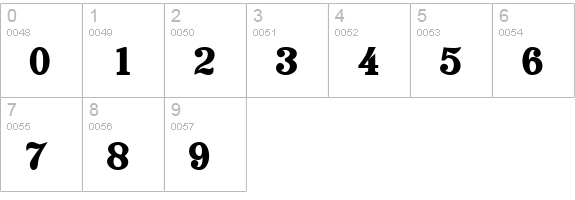
RataczakExtraBold Font Details
RataczakExtraBold font is a stunning and powerful typeface that commands attention with its bold and authoritative presence. Designed with a touch of elegance and a dash of modernity, this font is perfect for making a statement in any design project. With its thick and robust letterforms, RataczakExtraBold exudes confidence and strength, making it ideal for headlines, logos, posters, and any other application where you want to make a bold impact. Its clean and sharp edges give it a sleek and professional look, ensuring that your message will be conveyed with clarity and precision. But what sets RataczakExtraBold font apart is not just its exceptional design; it is also the fact that it is free to download at FontsMarket.com. Yes, you read that right - this incredible font can be yours without spending a dime. FontsMarket.com offers a wide range of high-quality fonts, and RataczakExtraBold is just one of the many gems you'll find on their website. Whether you're a professional graphic designer or someone who simply loves experimenting with different fonts, RataczakExtraBold is a must-have in your collection. Its versatility allows it to be used in various contexts, from branding projects to editorial designs, ensuring that your creative endeavors will always stand out from the crowd. So don't miss out on this amazing opportunity to enhance your designs with RataczakExtraBold font. Visit FontsMarket.com today and experience the joy of freely accessing this exceptional typeface. Let your creativity soar with RataczakExtraBold - the font that combines power, elegance, and affordability in one irresistible package.